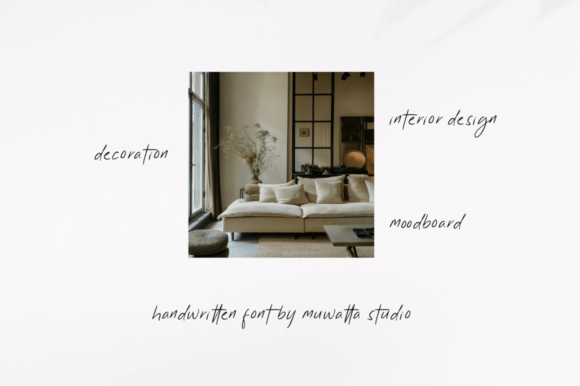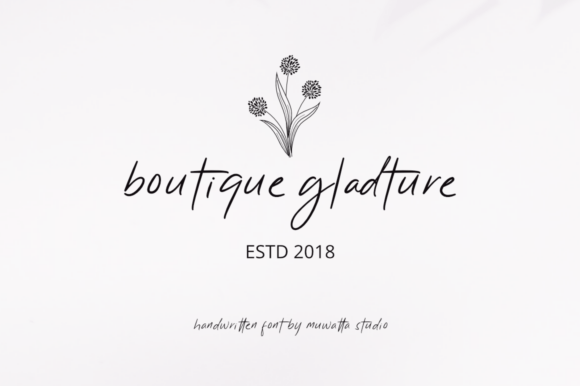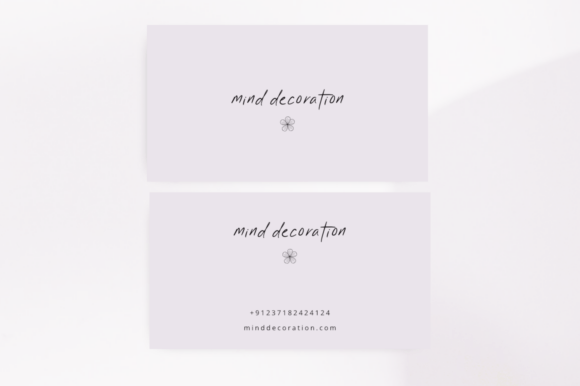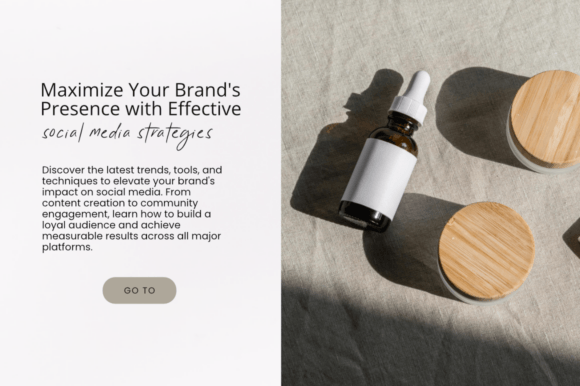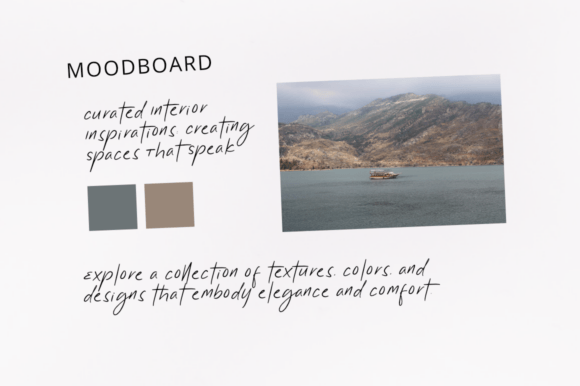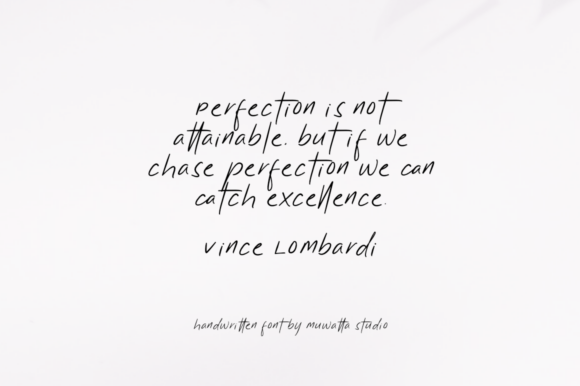
Introduction to Mind Glow Font
As a designer, there’s nothing quite like the thrill of discovering a new font that perfectly captures the essence of your creative vision. It’s that moment when all the elements come together – color, texture, typography – and you know you’ve found something special. For many of us, that moment came when we stumbled upon the Mind Glow Font, a beautifully organic font that radiates a warm, personal touch.
With its smooth, flowing letters and relaxed, handwritten style, Mind Glow Font is the perfect design resource for creatives who want to add a high-quality, natural touch to their projects. Whether you’re working on a packaging design, invitation, or branding project, this font is sure to elevate your work and connect with an audience seeking simplicity and nature-inspired design.
Key Features of Mind Glow Font
- Designed with a focus on simplicity and elegance, the Mind Glow Font is perfect for a wide range of applications, from branding to editorial content.
Honest Review: Mind Glow Font
I recently came across the Mind Glow Font, and I’m excited to share my thoughts on this design resource. As a designer, I appreciate high-quality fonts that can elevate a creative project. The Mind Glow Font is one such resource that delivers.
- ✨ Unique and creative design: The Mind Glow Font has a distinct, otherworldly feel that sets it apart from more traditional fonts.
While the Mind Glow Font is a great addition to any design arsenal, there are a few limitations to keep in mind:
- ⚠️ Limited character set: The font only includes a basic character set, which may not be sufficient for complex projects that require a wide range of special characters.
- ⚠️ Not suitable for body text: Due to its unique design, the Mind Glow Font is better suited for headings and titles rather than body text.
Overall, I’m impressed with the Mind Glow Font and think it’s a valuable resource for designers working on creative projects. While it has some limitations, its unique design and high-quality vectors make it a great addition to any design arsenal.